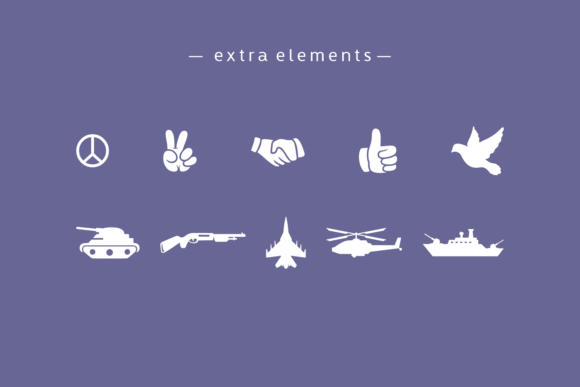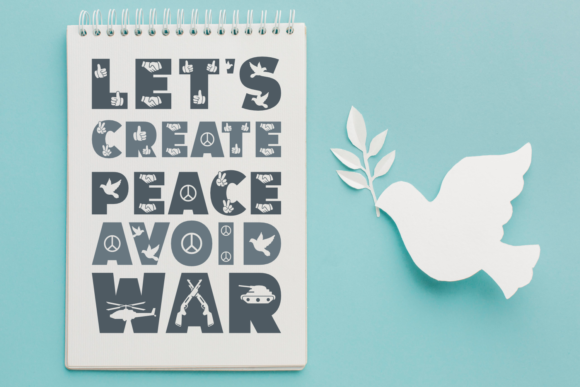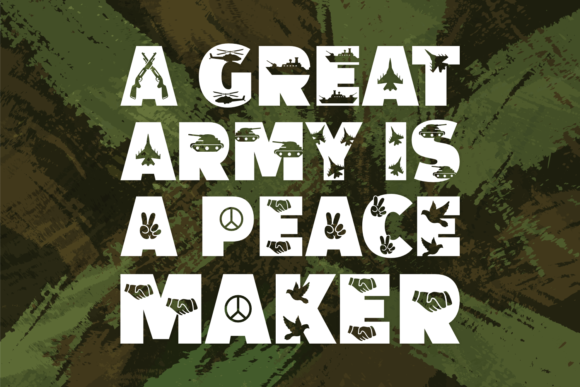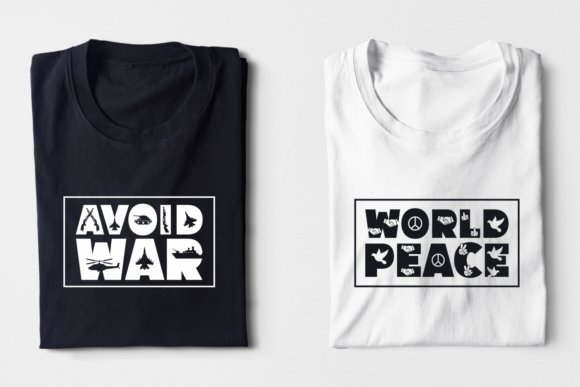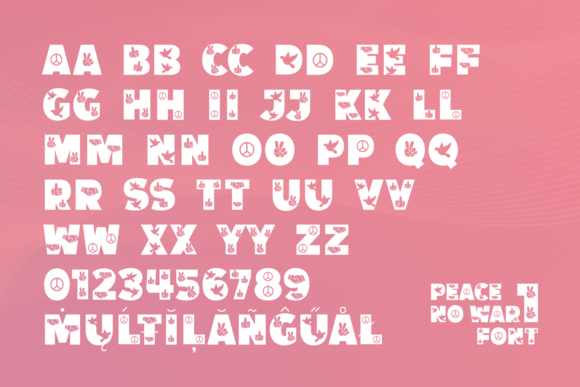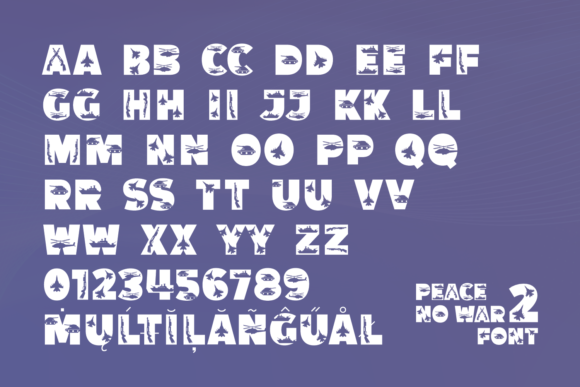
Introduction to Peace No War Font Font
Fonts play a crucial role in design, and the Peace No War Font font is a typeface that brings both character and versatility to any project. Whether you’re working on a branding project, a website, or a print design, the Peace No War Font font offers a unique style that can elevate your work.
Peace No War consists of two unique, bold and cool decorative fonts.
It is suitable for book texts, documentation, business reports, business correspondence, magazines, newspapers, posters, advertisements, multimedia, and corporate design .
Key Features of Peace No War Font Font
Why Choose Peace No War Font Font?
The Peace No War Font font is more than just a typeface – it’s a design tool that helps you communicate your message with style and clarity. Its unique character set and versatile design make it suitable for a wide range of applications, from elegant invitations to bold headlines.
With its carefully crafted letterforms and balanced proportions, the Peace No War Font font ensures readability and visual appeal across all mediums.
What makes Peace No War Font font special?
The Peace No War Font font stands out with its unique design, exceptional readability, and versatility across various design applications.